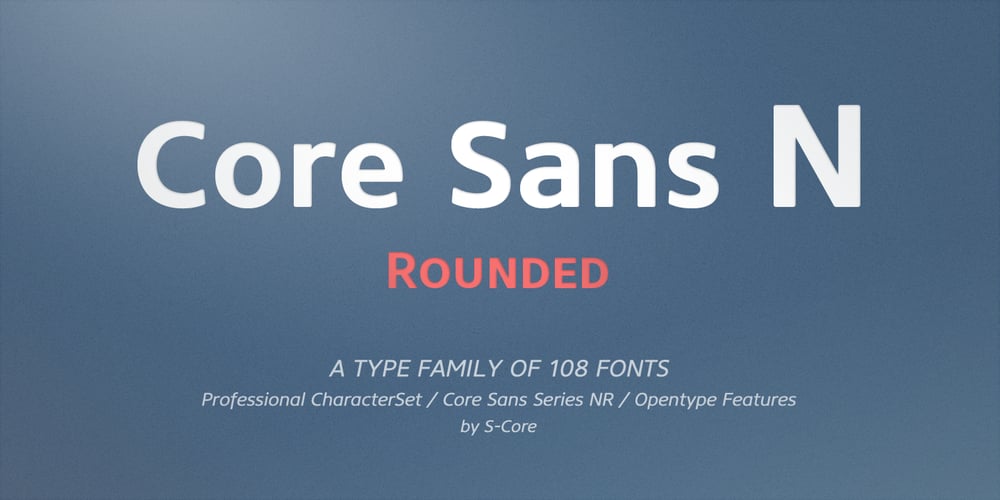
Core Sans NR
Core Sans NR font
Core Sans NR Font Family was designed by Hyun-Seung Lee, Dae-Hoon Hahm, Minjoo Ham and published by S-Core. Core Sans NR contains 108 styles and family package options. The Core Sans NR Family is a part of the Core Sans Series, such as Core Sans N, Core Sans N SC, Core Sans M, and Core Sans G. This family is the rounded version of Core Sans N family. Letters in the Core Sans NR Family are designed with genuine neo-grotesque and neutral shapes without any decorative distractions. The spaces between individual letter forms are precisely adjusted to create the perfect typesetting. The Core Sans NR Family consists of 3 widths (Condensed, Normal, Extended), 9 weights (Thin, ExtraLight, Light, Regular, Medium, Bold, ExtraBold, Heavy, Black), and Italics for each format. It also supports WGL4, which provides a wide range of character sets (CE, Greek, Cyrillic and Eastern European characters). Each font includes support for Tabular numbers, Arrows, Box drawings, Geometric shapes, Block elements, Mathematical operators, Miscellaneous symbols and Opentype Features such as Proportional Figures, Numerators, Denominators, Superscript, Scientific Inferiors, Subscript, Fractions and Standard Ligatures. The Core Sans NR Family provides both OpenType (.OTF) and TrueType (.TTF) versions in the same package. We highly recommend it for use in books, web pages, screen displays, and so on.